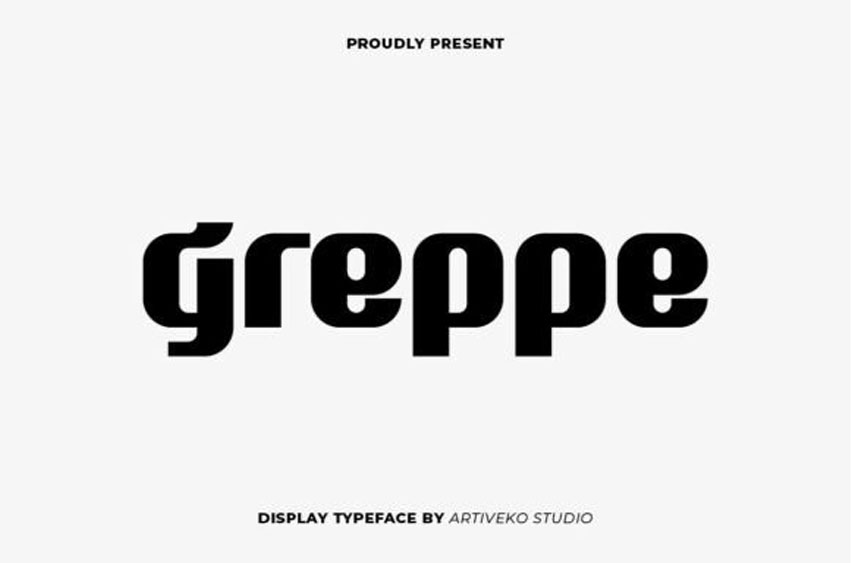
Greppe Font is a bold, modern display font that embodies confidence, geometry, and cutting-edge simplicity.
Its solid, modular shapes and smooth curves make it a striking choice for brands seeking a futuristic yet minimal aesthetic. The balance between rounded edges and strong verticals gives it a distinct industrial feel — bold, clean, and contemporary. Greppe’s weight and structure make it instantly recognizable, perfect for strong logos or impactful headings.
This font excels in technology branding, editorial design, product packaging, and motion graphics. It brings a sense of innovation and authority without losing its visual friendliness. Whether for tech startups, minimalist campaigns, or modern posters, Greppe delivers sleek, forward-thinking design energy that captures the future of typography.